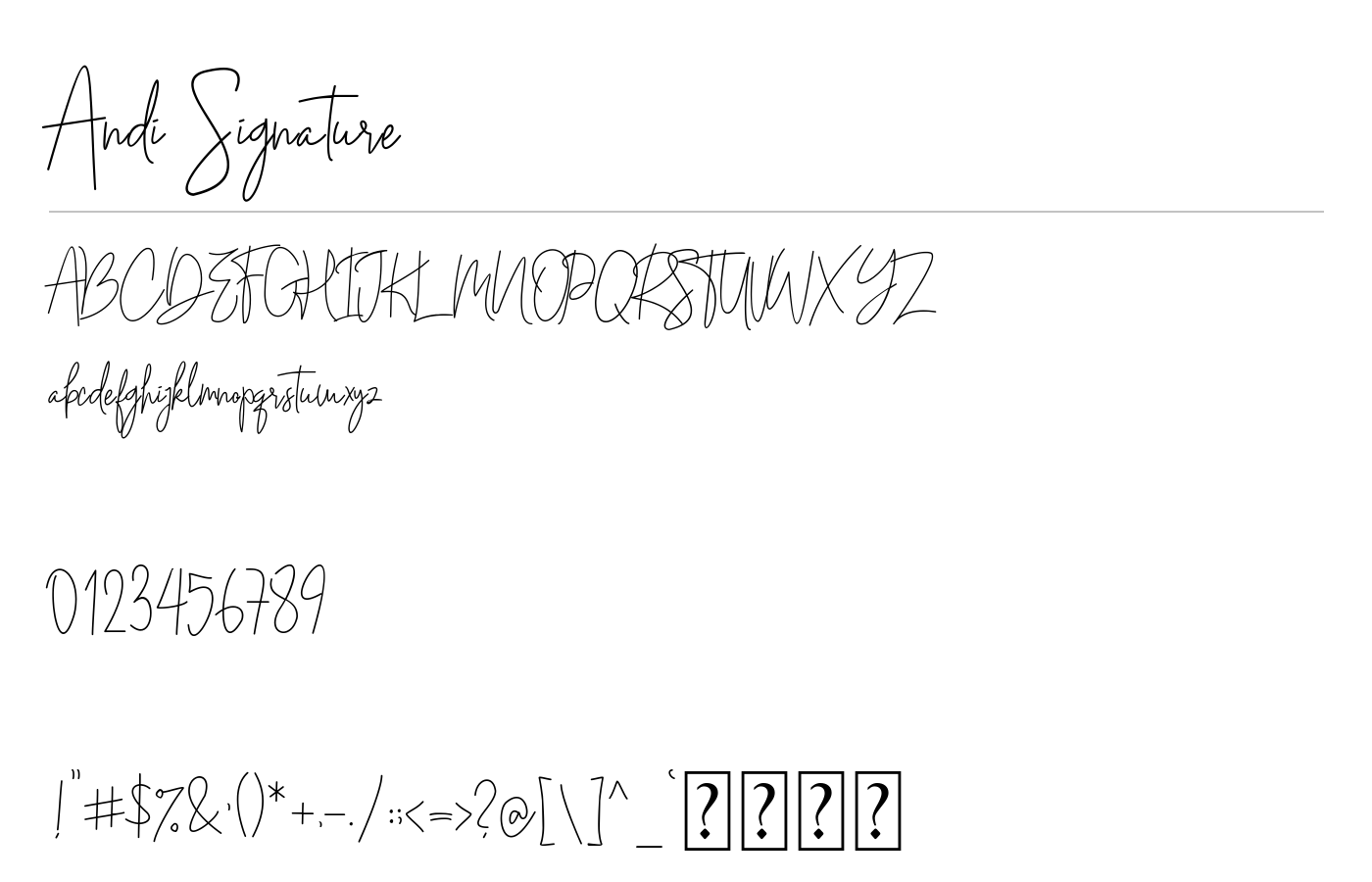
Andi Signature is a delicate, handwritten script font that captures the elegance and spontaneity of a personal signature with its thin, flowing strokes and tall, narrow letterforms. Its airy, casual style lends a friendly yet sophisticated charm, making it perfect for fashion branding, invitations, and creative projects that seek a personalized, artistic touch. This font works best in logos and headlines where its unique, expressive character can truly stand out.
Andi Signature Font
About Andi Signature Font